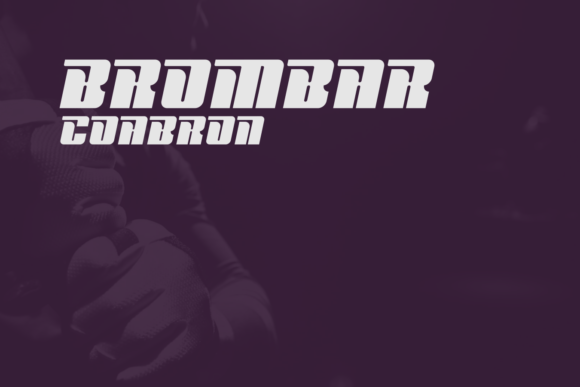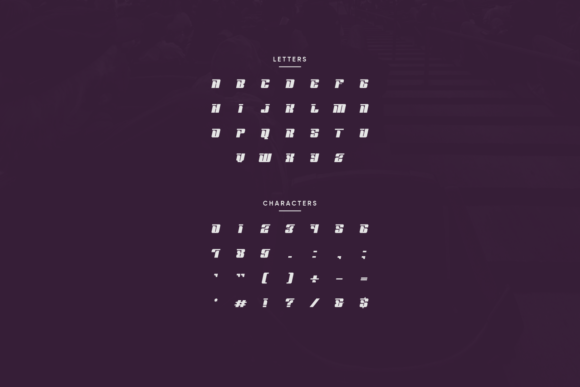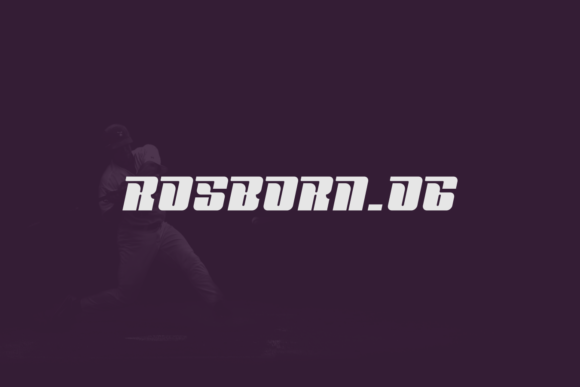
Introducing Barono Font: The Ultimate Sports Font for Modern Designs
Are you tired of using the same old fonts for your sports-themed designs? Look no further! Barono Font is here to revolutionize the way you create stunning visuals for your projects. This fresh sports font is designed to bring a cool and modern touch to your designs, making it perfect for sports magazines, headlines, auto racing, logos, branding, monograms, and more.
What Makes Barono Font Stand Out?
Barono Font boasts a unique and dynamic design that sets it apart from other sports fonts. Its wide italics and all-caps modern letter cuts give it a sleek and sporty look that’s sure to grab attention. The slanted corner cuts create an effect of power and speed, making it ideal for designs that require a sense of energy and movement.
Key Features of Barono Font
- Fresh and Cool Design: Barono Font has a modern and sporty design that’s perfect for creating stunning visuals.
- Wide Italics: The font’s wide italics add a touch of elegance and sophistication to your designs.
- All-Caps Modern Letter Cuts: The font’s all-caps design with modern letter cuts gives it a sleek and contemporary look.
- Dynamic Slant: The slanted corner cuts create a sense of power and speed, making it perfect for sports-themed designs.
- Versatile: Barono Font can be used for a variety of projects, including sports magazines, headlines, auto racing, logos, branding, monograms, and more.
Why Choose Barono Font?
Barono Font is the perfect choice for designers and crafters who want to create stunning sports-themed designs. Its unique and dynamic design makes it stand out from other fonts, and its versatility ensures that it can be used for a wide range of projects. Whether you’re working on a sports magazine, a logo, or a branding project, Barono Font is sure to make your designs more stand out.
Tips for Using Barono Font
- Use it for Headlines: Barono Font is perfect for headlines, especially for sports-themed designs.
- Experiment with Colors: The font looks great in bold colors, so don’t be afraid to experiment with different colors and gradients.
- Pair it with Other Fonts: Barono Font can be paired with other fonts to create a unique and interesting design.
In conclusion, Barono Font is a fresh and cool sports font that’s perfect for modern designs. Its unique and dynamic design makes it stand out from other fonts, and its versatility ensures that it can be used for a wide range of projects. Whether you’re a designer or a crafter, Barono Font is sure to make your designs more stand out. So why wait? Grab Barono Font today and take your designs to the next level!